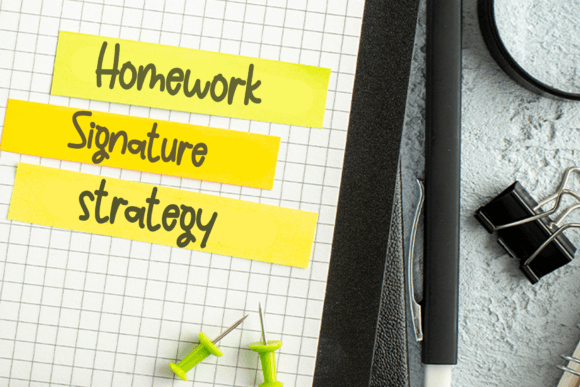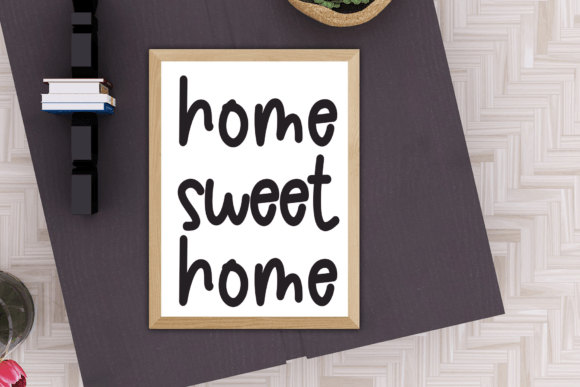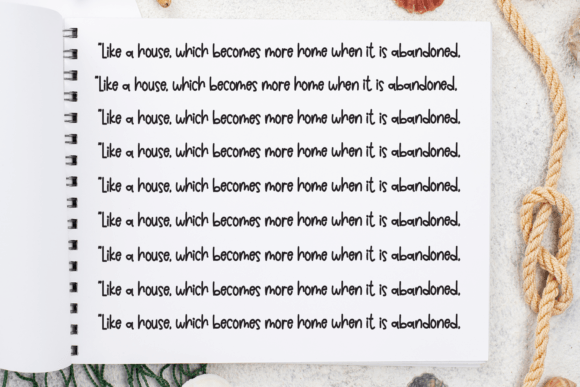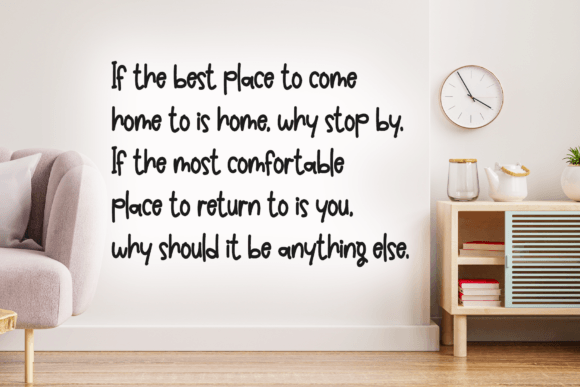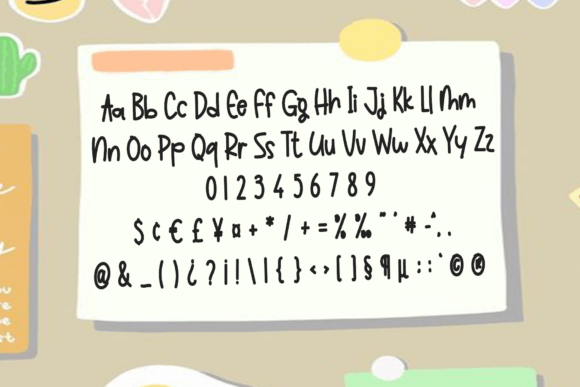
Happy Monday Font: Adding a Touch of Warmth to Your Designs
Are you tired of using the same old fonts for your designs? Do you want to add a personal touch to your creations? Look no further than the Happy Monday Font, a delightful handwritten font that is sure to bring warmth and personality to your designs.
What is Happy Monday Font?
Happy Monday Font is a whimsical handwritten font that is imbued with warmth and personality. Its unique strokes and varied letterforms evoke a sense of authenticity and charm, making it perfect for conveying heartfelt messages. Whether you’re a designer, crafter, or simply someone who loves to create, this font is sure to become a favorite in your collection.
Characteristics of Happy Monday Font
So, what makes Happy Monday Font so special? Here are just a few of its key characteristics:
- Handwritten with love: Happy Monday Font is a true handwritten font, created with love and care to give your designs a personal touch.
- Whimsical strokes: The font features whimsical strokes and varied letterforms that add a touch of playfulness to your designs.
- Authentic and charming: The font’s unique character is sure to evoke a sense of authenticity and charm, making it perfect for conveying heartfelt messages.
- Versatile: Happy Monday Font is perfect for a wide range of design applications, from invitations and greeting cards to branding and more.
Uses for Happy Monday Font
So, how can you use Happy Monday Font in your designs? Here are just a few ideas to get you started:
- Invitations: Use Happy Monday Font to create beautiful, one-of-a-kind invitations for special occasions like weddings, birthdays, and more.
- Greeting cards: Add a personal touch to your greeting cards with Happy Monday Font, perfect for holidays, birthdays, and other special occasions.
- Branding: Use Happy Monday Font to add a touch of warmth and personality to your brand, perfect for businesses that want to stand out from the crowd.
- DIY projects: Happy Monday Font is perfect for crafters and DIY enthusiasts who want to add a personal touch to their projects, from scrapbooking to home decor.
Tips for Using Happy Monday Font
Here are a few tips for getting the most out of Happy Monday Font:
- Pair with other fonts: Happy Monday Font pairs perfectly with other fonts, so don’t be afraid to experiment with different combinations.
- Use it sparingly: While Happy Monday Font is perfect for adding a personal touch to your designs, it’s best used sparingly to avoid overwhelming the design.
- Experiment with colors: Happy Monday Font looks great in a variety of colors, so don’t be afraid to experiment with different hues and shades.
In conclusion, Happy Monday Font is a delightful handwritten font that is sure to add a touch of warmth and personality to your designs. With its whimsical strokes and varied letterforms, it’s perfect for conveying heartfelt messages and adding a personal touch to your creations. Whether you’re a designer, crafter, or simply someone who loves to create, Happy Monday Font is a must-have in your font collection.